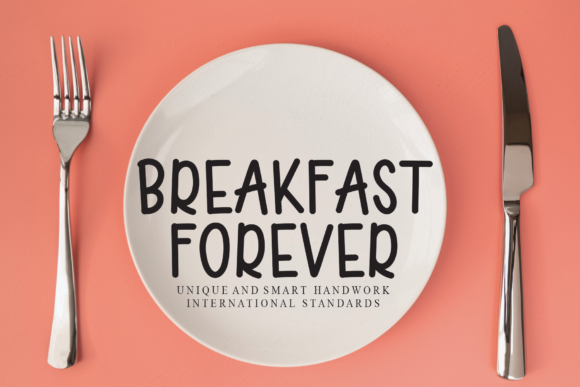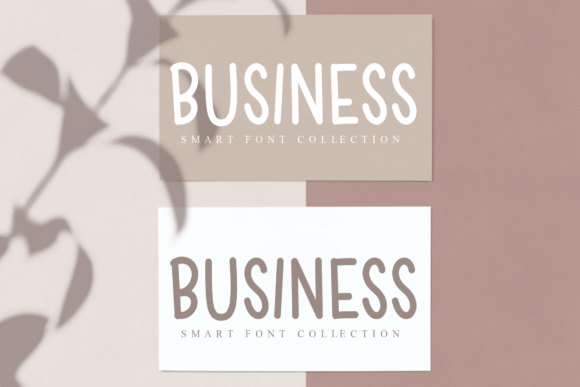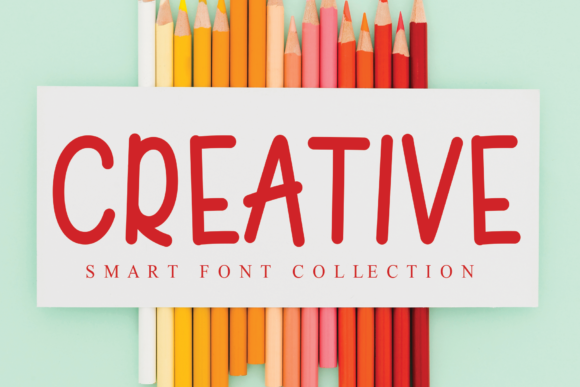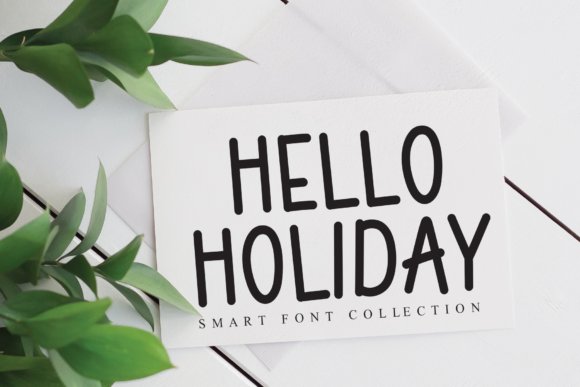
Hello Friend Font: The Sweet and Friendly Handwritten Font for Your Design Needs
Hello Friend is a sweet and friendly handwritten font that has been making waves in the design community. Its natural and unique style makes it incredibly fitting to a large pool of designs, and the only limit is your imagination! In this article, we’ll dive into the features and benefits of Hello Friend Font, and explore how it can elevate your designs to the next level.
What is Hello Friend Font?
Hello Friend Font is a handwritten font that exudes warmth and friendliness. Its organic and flowing style gives it a personal touch, making it perfect for designs that require a human feel. The font is designed to be versatile, and its unique style makes it suitable for a wide range of applications, from branding and advertising to crafting and DIY projects.
Key Features of Hello Friend Font
- Handwritten style: Hello Friend Font has a natural, handwritten style that gives it a personal and friendly feel.
- Unique and distinctive: The font’s unique style sets it apart from other fonts, making it perfect for designers who want to create something that stands out.
- Versatile: Hello Friend Font can be used for a wide range of designs, from digital projects to print materials.
- Easily readable: Despite its handwritten style, Hello Friend Font is easily readable, making it perfect for body text and headings.
Benefits of Using Hello Friend Font
So, why should you use Hello Friend Font in your designs? Here are just a few benefits:
- Adds a personal touch: Hello Friend Font’s handwritten style gives your designs a personal touch, making them more relatable and engaging.
- Creates a friendly atmosphere: The font’s friendly and approachable style creates a warm and welcoming atmosphere, perfect for brands that want to build a strong connection with their audience.
- Stand out from the crowd: Hello Friend Font’s unique style makes it easy to stand out from the crowd and create designs that are truly memorable.
- Perfect for crafty and DIY projects: The font’s handmade style makes it perfect for crafty and DIY projects, such as handmade cards, invitations, and scrapbooking.
How to Use Hello Friend Font in Your Designs
Using Hello Friend Font in your designs is easy! Here are a few tips to get you started:
- Pair it with other fonts: Hello Friend Font pairs well with other fonts, such as sans-serif fonts, to create a unique and interesting contrast.
- Use it for headings and titles: The font’s bold and playful style makes it perfect for headings and titles.
- Add it to your branding: Hello Friend Font can be used to create a consistent brand identity across all your marketing materials.
- Experiment with colors and textures: The font’s versatility makes it easy to experiment with different colors and textures to create a unique look.
Hello Friend Font is a sweet and friendly handwritten font that can elevate your designs to the next level. Its natural and unique style makes it incredibly fitting to a large pool of designs, and the only limit is your imagination! With its versatility, readability, and friendly style, Hello Friend Font is perfect for designers and crafters who want to create something truly special. So why not give it a try and see how it can transform your designs?